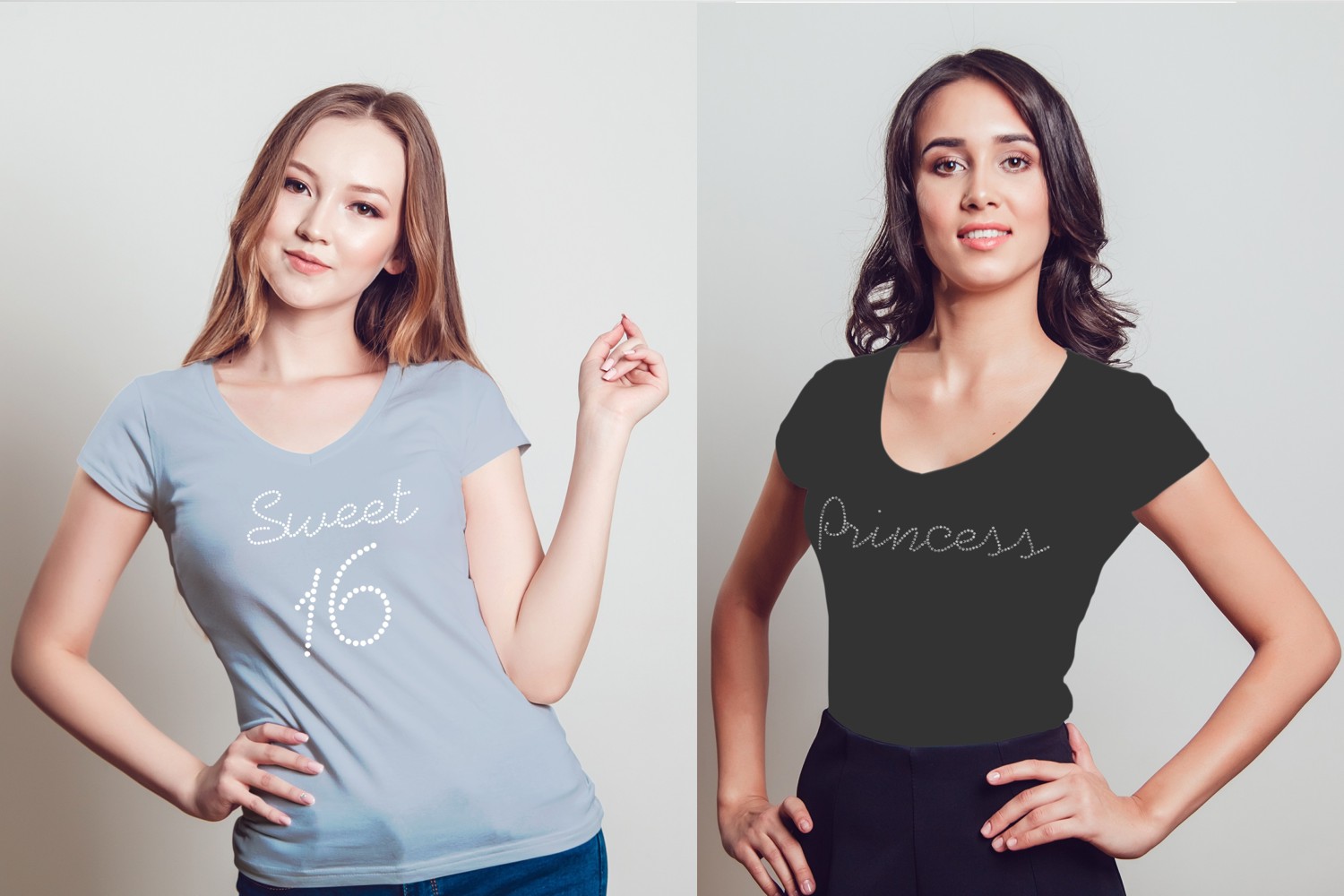
Introducing Beadwork Font: A Rhinestones Inspired Typeface
Beadwork Font is a unique and creative typeface that draws inspiration from the world of rhinestones and beadwork. This digital font was carefully crafted on a digital tablet, bringing a touch of handmade charm to the digital realm. In this article, we’ll explore the story behind Beadwork Font, its features, and how it can be used to add a touch of sparkle to your designs.
The Art of Beadwork
Beadwork is a traditional craft that involves using beads and other materials to create intricate designs and patterns. This art form has been around for centuries, with various cultures contributing to its evolution. From Native American beadwork to African and Asian designs, beadwork has become a symbol of cultural heritage and craftsmanship.
The process of creating beadwork is labor-intensive and requires great skill and patience. Beads are carefully selected and arranged to form patterns, shapes, and designs. The end result is a stunning piece of art that showcases the creator’s attention to detail and creativity.
Beadwork Font: A Digital Interpretation
Beadwork Font takes the traditional art of beadwork and translates it into a digital typeface. Each letter and character is carefully crafted to resemble the sparkle and shine of rhinestones. The font is drawn on a digital tablet, giving it a handmade feel that’s perfect for designers and crafters looking for a unique touch.
The Beadwork Font is a perfect blend of modern and traditional design. Its rhinestones-inspired aesthetic makes it ideal for projects that require a touch of glamour and sophistication. Whether you’re designing a logo, creating a craft project, or working on a digital art piece, Beadwork Font is sure to add a touch of sparkle.
Features of Beadwork Font
Beadwork Font comes with a range of features that make it versatile and easy to use. Some of its key features include:
- Unique and creative design: Each letter and character is carefully crafted to resemble rhinestones, giving the font a distinctive look.
- Handmade feel: The font is drawn on a digital tablet, giving it a handmade feel that’s perfect for crafters and designers.
- Digital versatility: Beadwork Font can be used on a range of digital platforms, from graphic design software to craft projects.
- Easily customizable: The font can be scaled, colored, and manipulated to fit your design needs.
Using Beadwork Font in Your Designs
Beadwork Font is perfect for designers and crafters looking to add a touch of sparkle to their projects. Here are some ideas on how to use the font:
- Logos and branding: Use Beadwork Font to create a unique and memorable logo that stands out from the crowd.
- Craft projects: Add a touch of handmade charm to your craft projects, such as scrapbooking, card making, and jewelry design.
- Digital art: Use Beadwork Font to add text and interest to your digital art pieces.
- Sign making: Create eye-catching signs and displays using Beadwork Font.
Beadwork Font is a unique and creative typeface that brings the sparkle and shine of rhinestones to the digital realm. Its handmade feel and versatile design make it perfect for designers and crafters looking to add a touch of charm to their projects. Whether you’re working on a logo, craft project, or digital art piece, Beadwork Font is sure to add a touch of sparkle and sophistication.